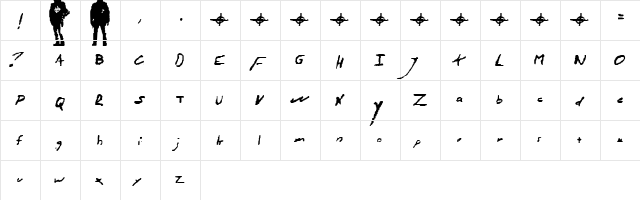
Zodiac hand Regular Font Preview
Zodiac hand Regular
Zodiac hand Regular Font Details
Design Context for Zodiac hand Typeface
Zodiac hand flows with the natural rhythm of handwritten lettering, making it ideal for designs that call for warmth and personal expression.
Font Pairing: Combine Zodiac hand with a simple geometric sans for maximum contrast — the tension between flowing curves and clean structure is a classic typographic pairing.
Pro Tip: Use Zodiac hand for short runs of text — names, titles, or taglines. Extended body copy in script faces tires the eye quickly.